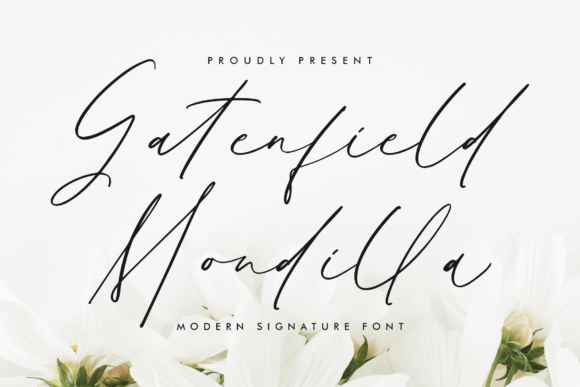
Unleash the Allure of Gatenfield Mondilla: A Font to Elevate Your Designs to New Heights
In the realm of typography, Gatenfield Mondilla emerges as a radiant star, ready to illuminate your creative horizons with its captivating charm. This exquisite script font, a masterpiece crafted by the renowned Storytype Studio, stands as a testament to elegance, sophistication, and artistic brilliance.
Born from the desire to fuse timeless beauty with contemporary flair, Gatenfield Mondilla artfully dances across your digital canvas, leaving a trail of visual splendor in its wake. Its meticulously crafted curves, graceful terminals, and subtle flourishes evoke a sense of luxury and refinement that is simply irresistible.
A Harmonious Blend of Tradition and Modernity
Gatenfield Mondilla's roots lie deep in the rich soil of classic calligraphy, yet it fearlessly embraces the dynamism of modern design. Its fluid strokes and elegant serifs evoke a sense of nostalgia, harkening back to an era of handwritten letters and artistic expression.
Yet, within this font's traditional core lies a spirit of innovation. Its clean lines and contemporary aesthetic ensure that it remains effortlessly relevant in today's fast-paced digital landscape. Gatenfield Mondilla seamlessly blends the best of both worlds, creating a timeless masterpiece that transcends the boundaries of time.
A Versatile Font for a Myriad of Creative Endeavors
Gatenfield Mondilla is far from being a one-dimensional font. Its versatility knows no bounds, making it an ideal companion for a wide array of design projects. Whether you're crafting an elegant logo for your budding fashion brand, designing a captivating book or movie title, or adding a touch of sophistication to your latest social media post, this font will elevate your creations to new heights.
Its inherent charm knows no limitations. Whether you're seeking to add a personal touch to your wedding invitations, create eye-catching posters that demand attention, or simply add a touch of elegance to your everyday documents, Gatenfield Mondilla will effortlessly transform your words into works of art.